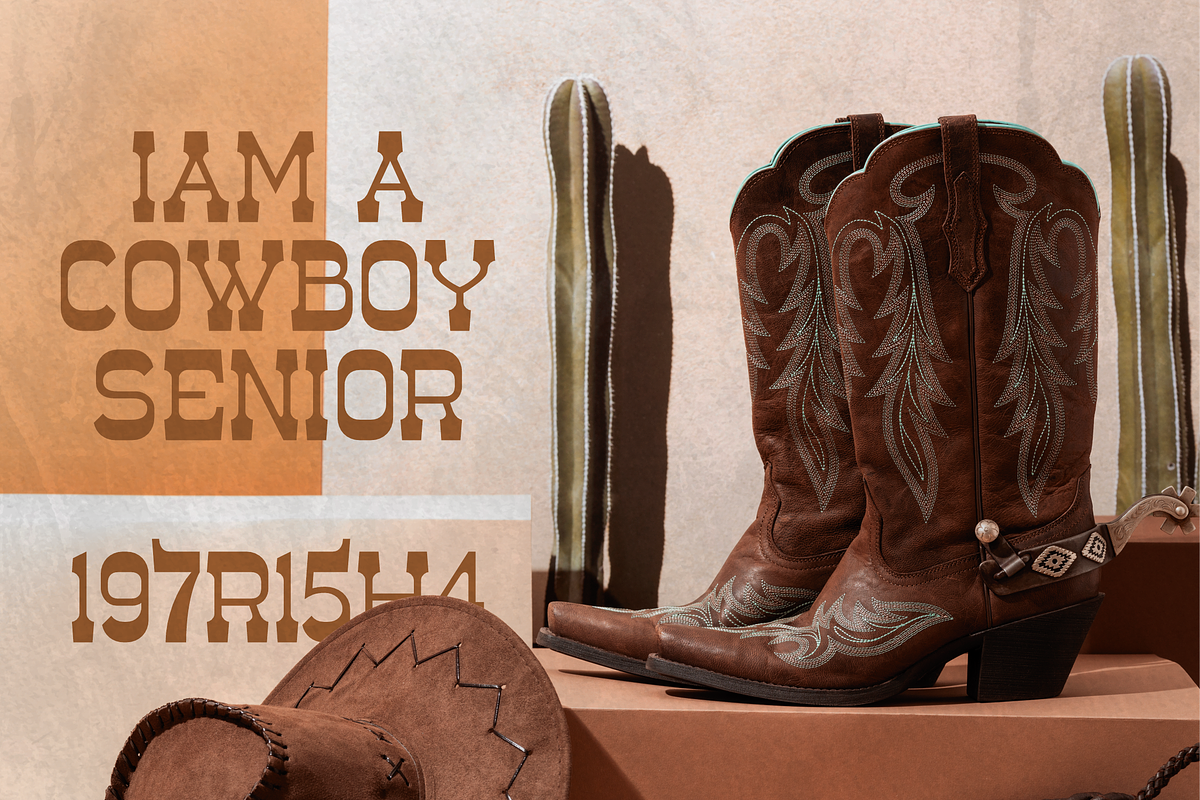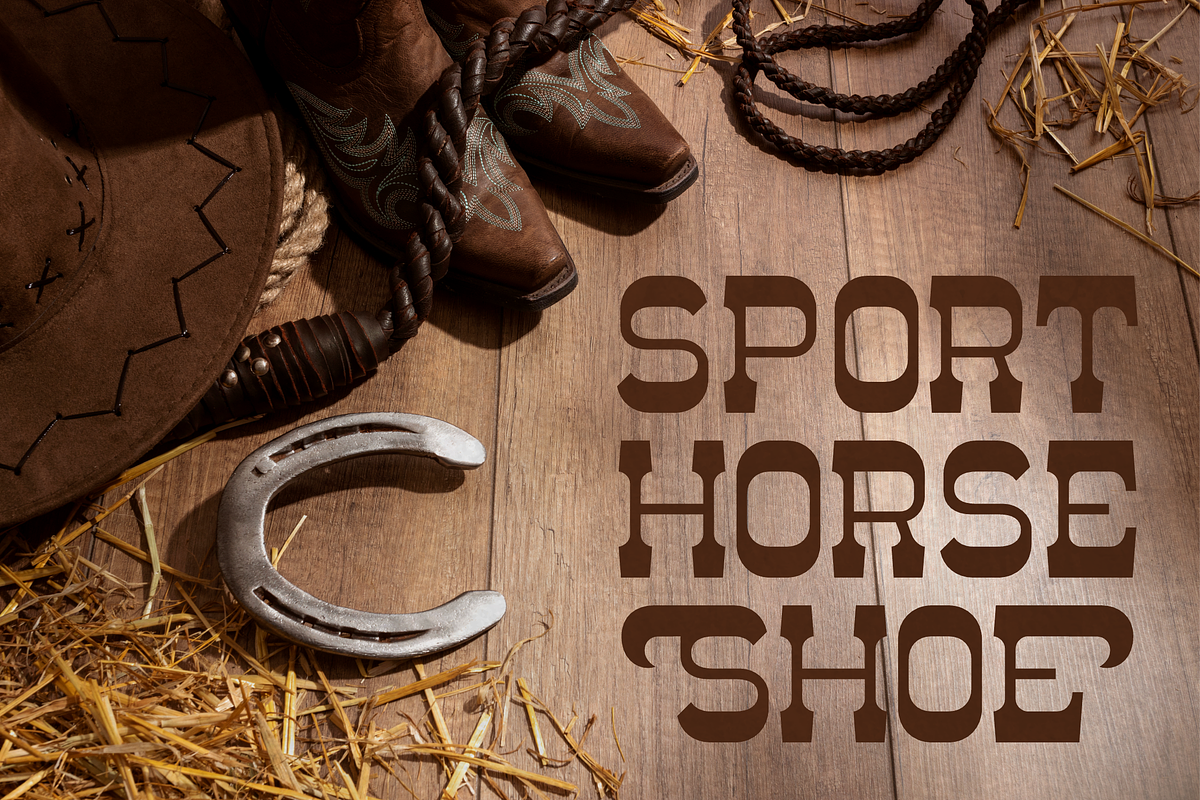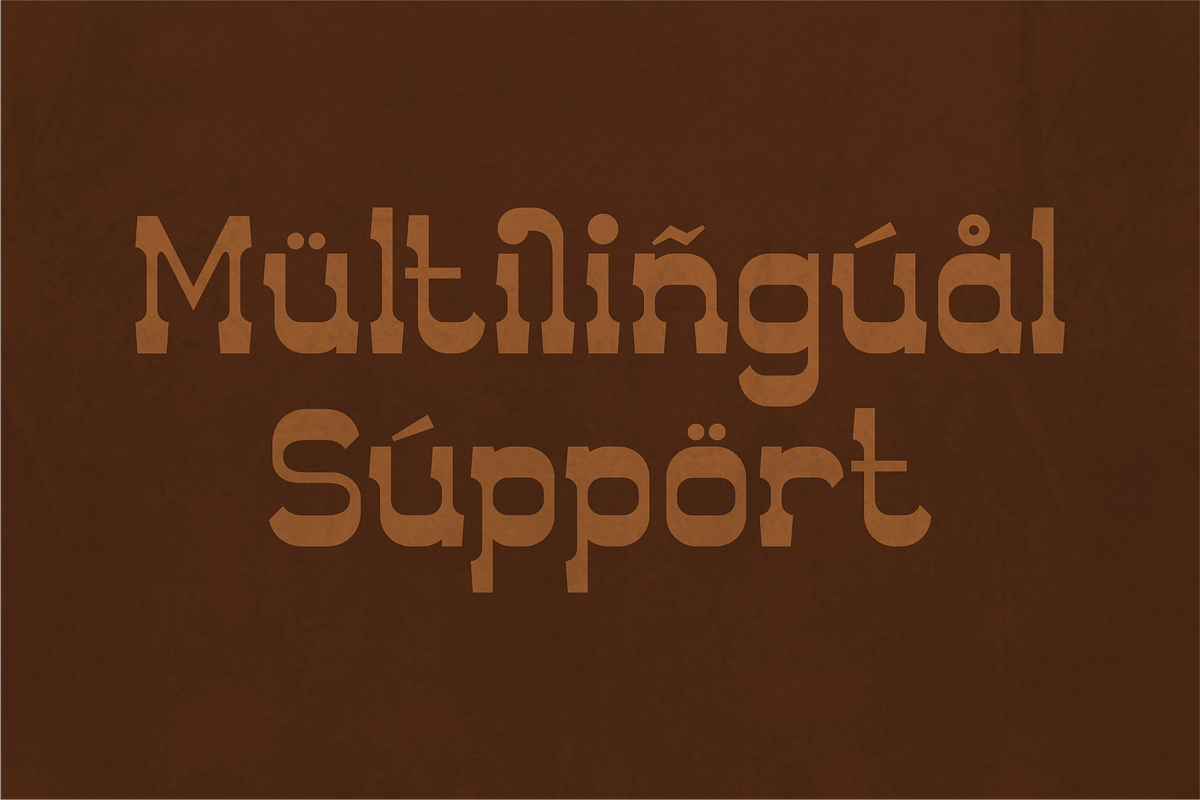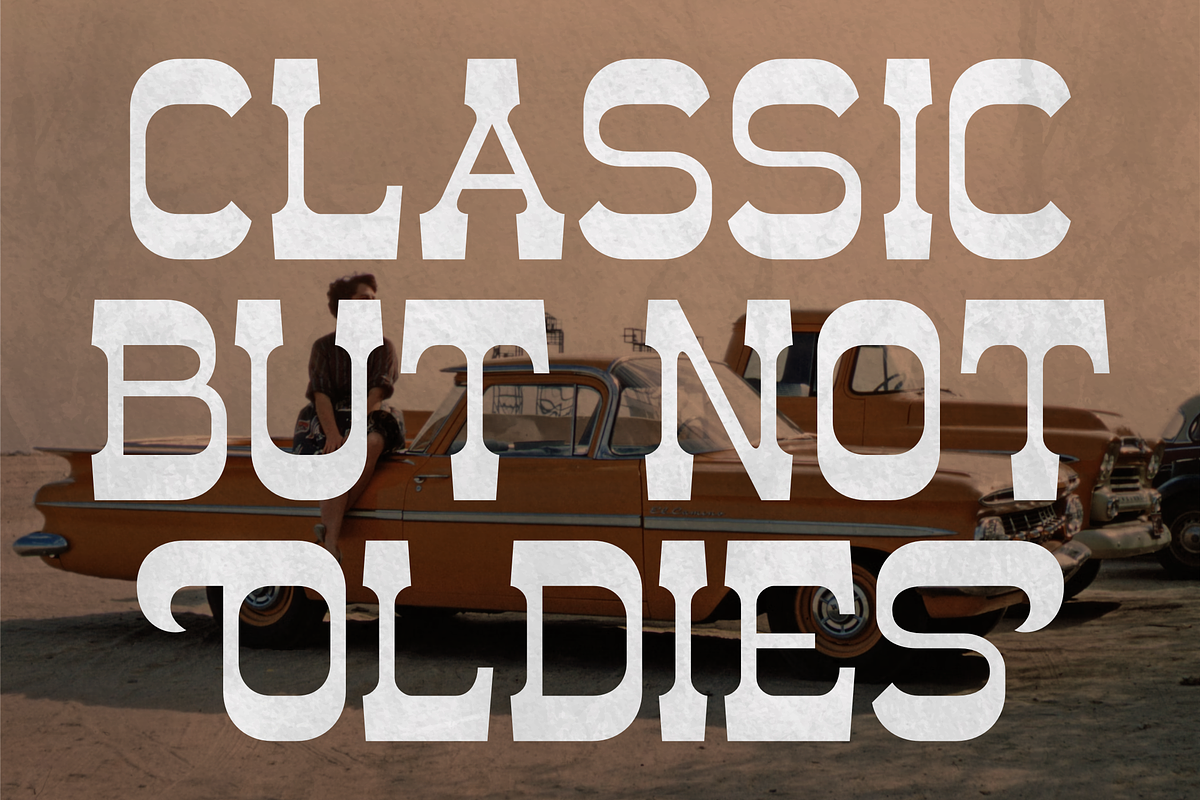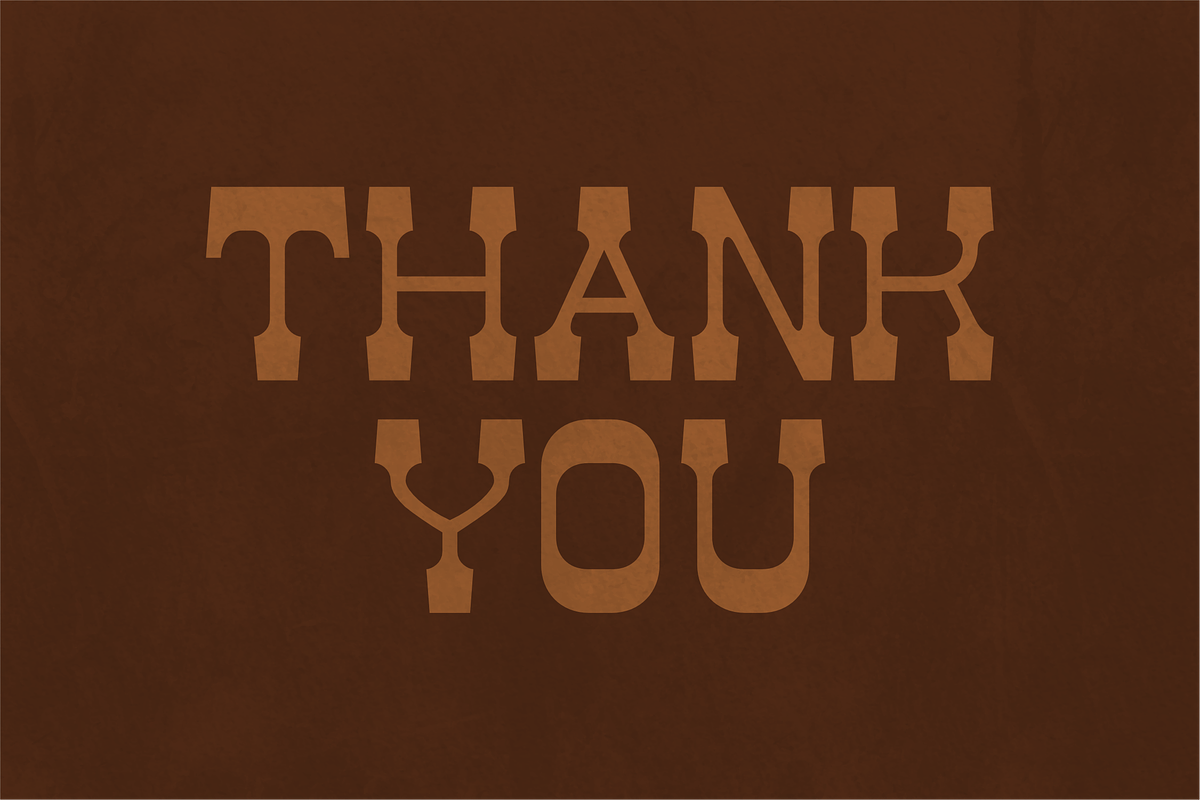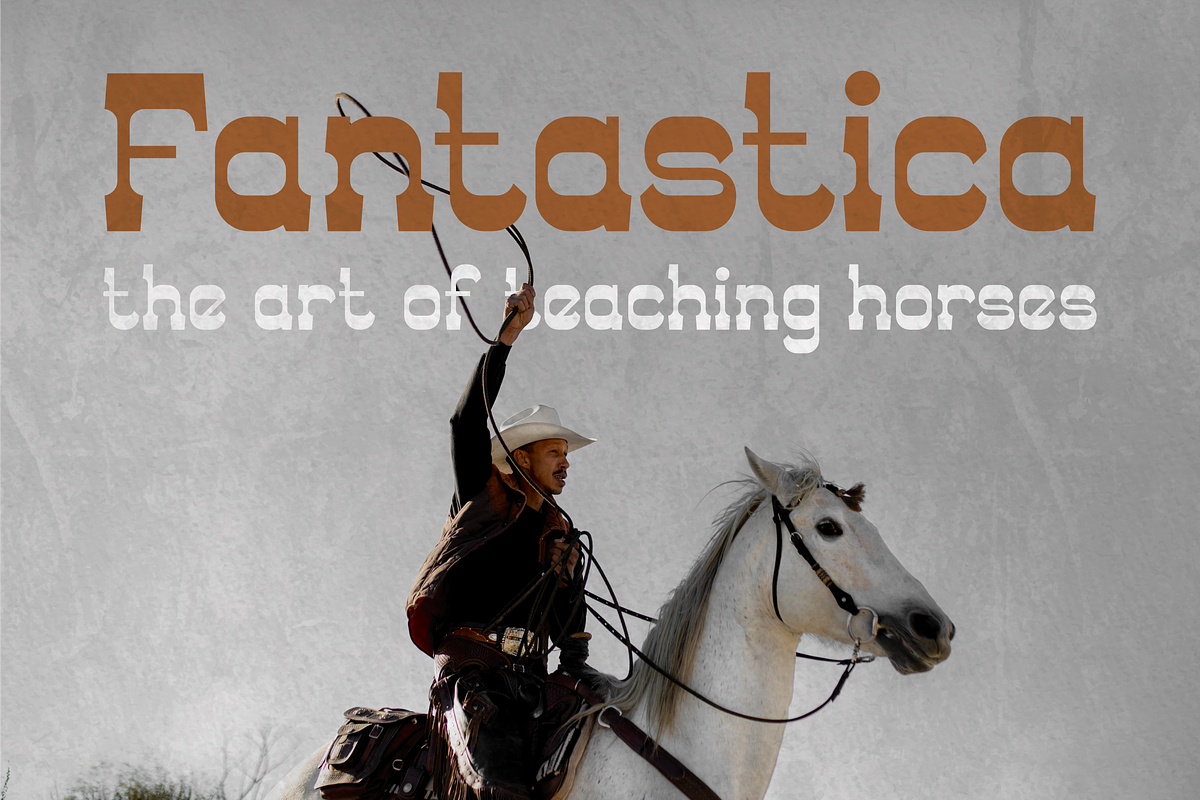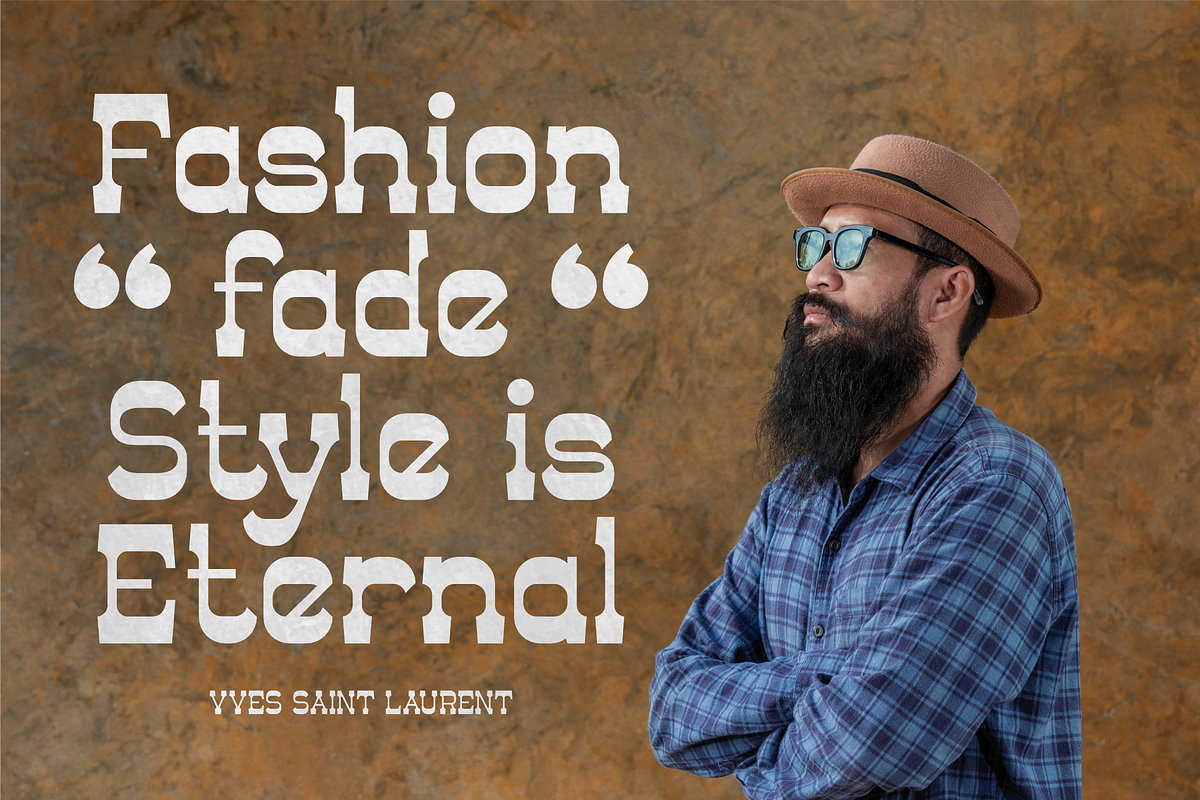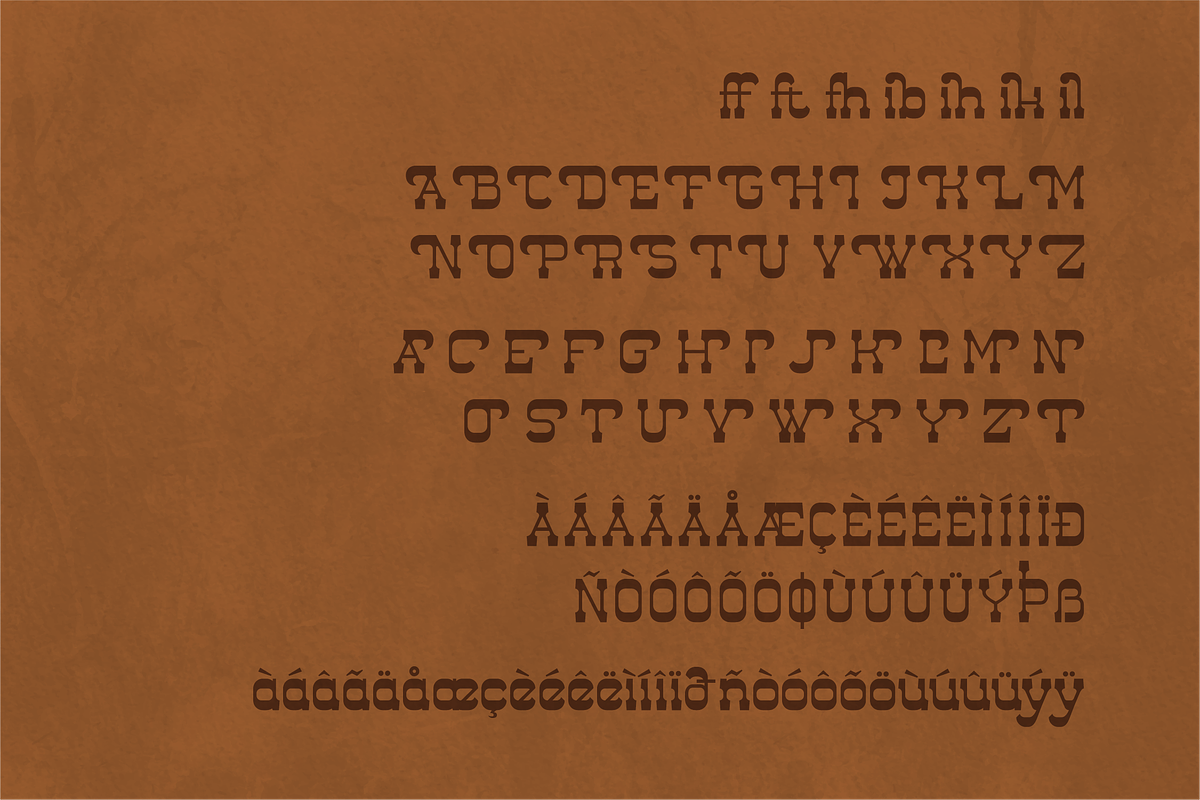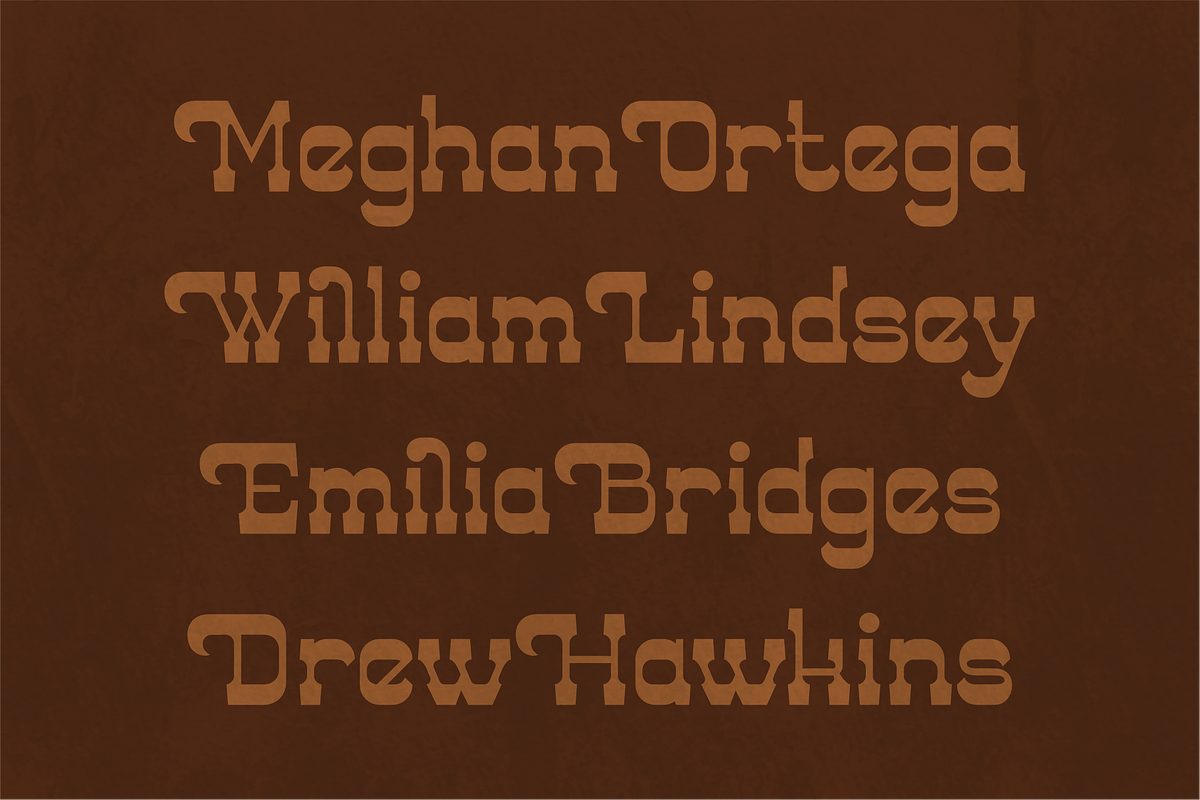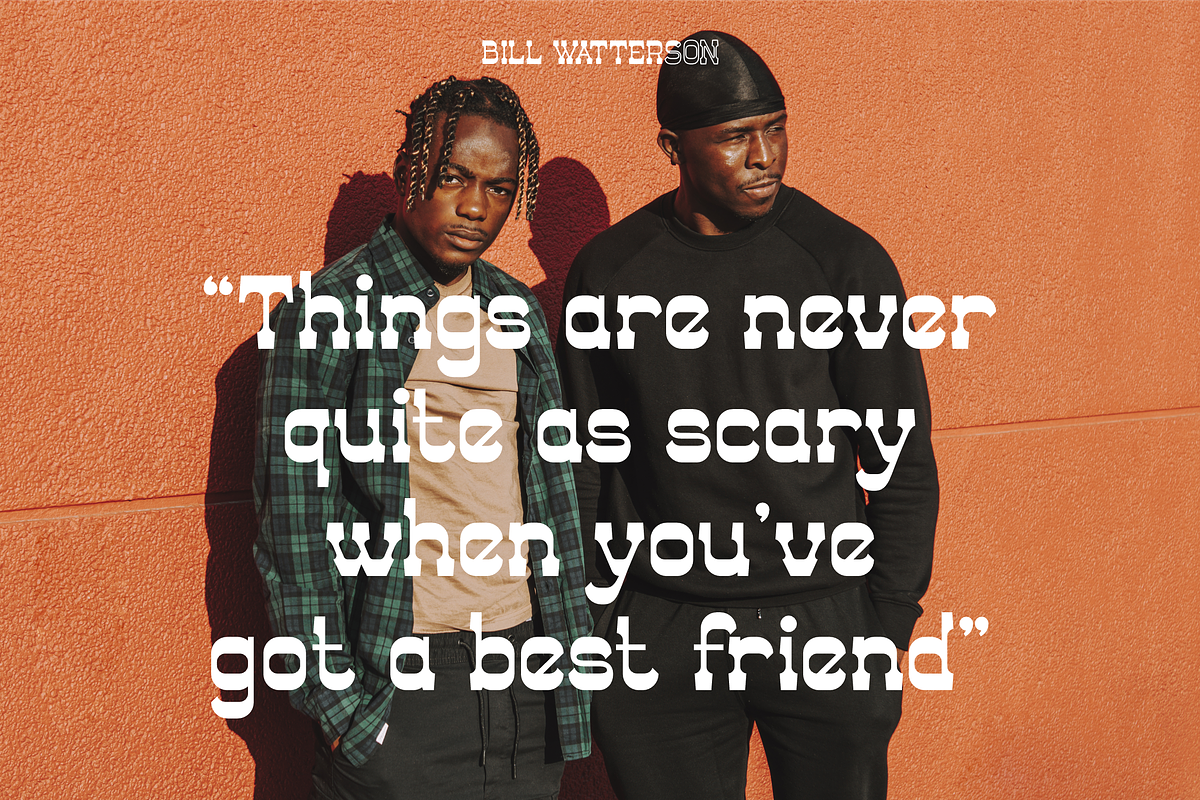
Mayor Sheriv A Modern Serif Font
Proudly present Mayor Sheriv Typeface , created by Storytype, A serif modern and classic typeface that has own unique style & modern look. This typeface is perfect for an elegant & luxury logo, book or movie title design, fashion brand, magazine, clothes, lettering, quotes, and so much more.